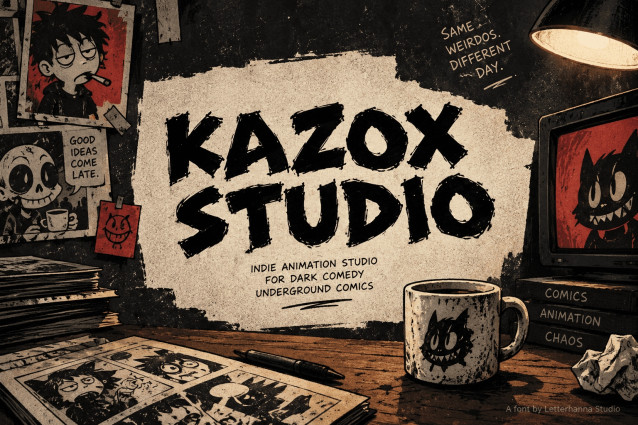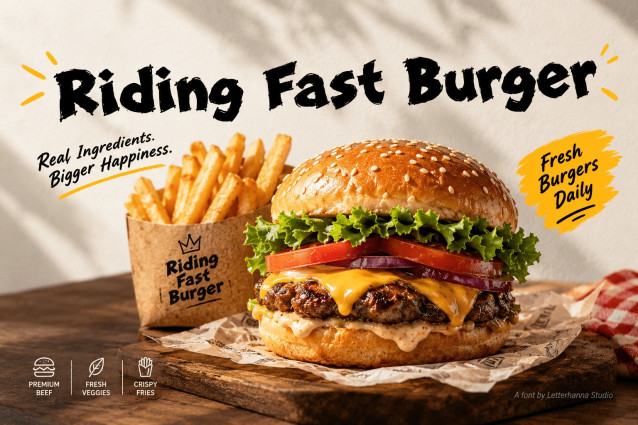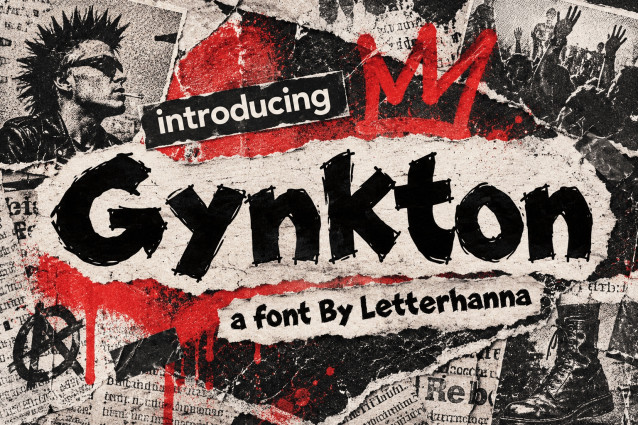
Gynkton: The Edgy Font Built for Bold, Rebellious Brands
Most fonts play it safe. Gynkton doesn’t. This edgy font was built for brands that refuse to blend into the noise — rough-edged, hand-inked, and loud enough to stop a scroll in its tracks.
Every letterform in Gynkton looks like it was scratched onto a wall at 2 AM. The doubled ink-line strokes, jagged terminals, and uneven weight give it that authentic urban font texture — nothing feels templated or overly polished. It’s imperfection used as a design weapon.